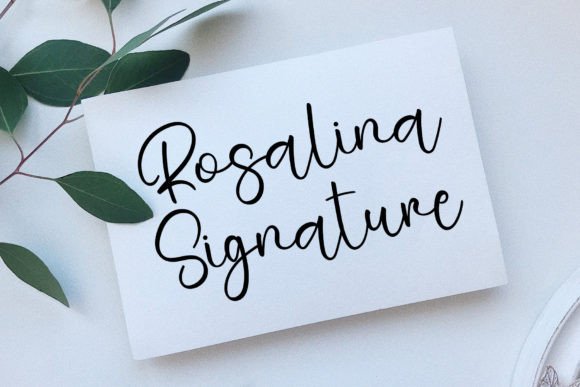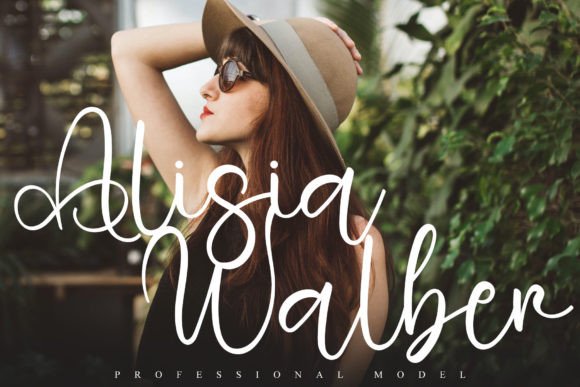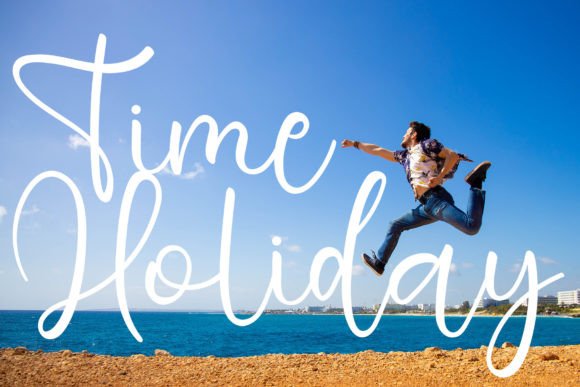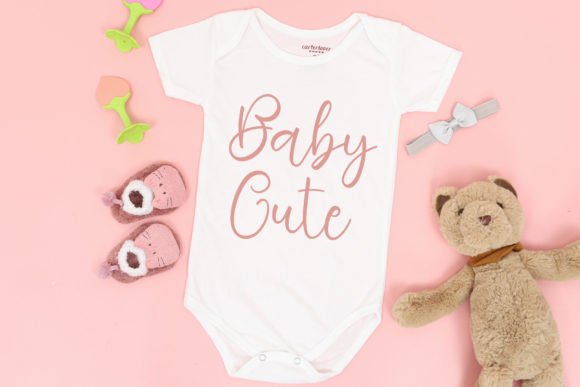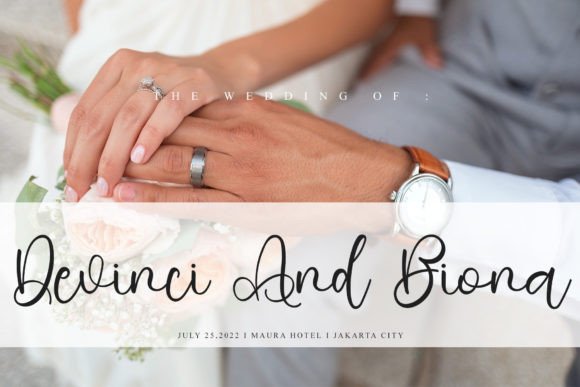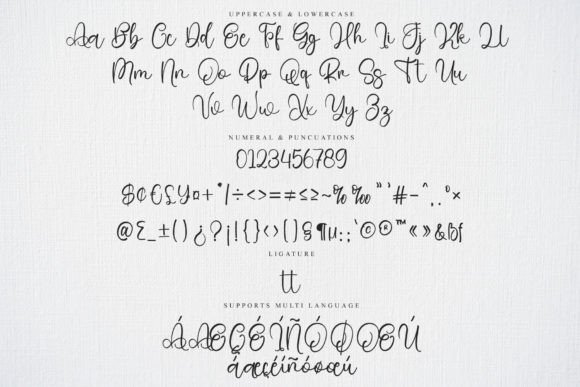
Branding Font
About Branding Font
“Branding is a delicate and elegant handwritten font that stands out as a masterpiece with its distinct and well-balanced letters. This font captures attention with its refined and sophisticated style, inviting you to fall in love with its versatility and use it to create truly spectacular designs.
The charm of Branding lies in its delicate and elegant script, where each letter is meticulously designed to achieve a harmonious balance. The result is a font that exudes a sense of sophistication, making it suitable for a wide range of creative applications.
Whether you’re working on branding projects, invitations, or any other design endeavor, Branding becomes a reliable choice. Its versatility allows it to seamlessly integrate into different contexts, adding a touch of elegance and style to your creations.
Imagine Branding enhancing your projects, adding a delicate and elegant touch to your text. Its distinct and well-balanced letters become the defining element that sets your designs apart, creating a visual experience that resonates with charm and sophistication.
As you explore the nuances of Branding, you’ll discover its potential to transform ordinary projects into visual masterpieces. Let it be the font that adds a touch of delicacy to your creative vision, making your designs stand out with a flowing and elegant handwritten aesthetic. With Branding, every stroke becomes a brushstroke of beauty, making it an invaluable asset for designers seeking a delicate and versatile handwritten font.”